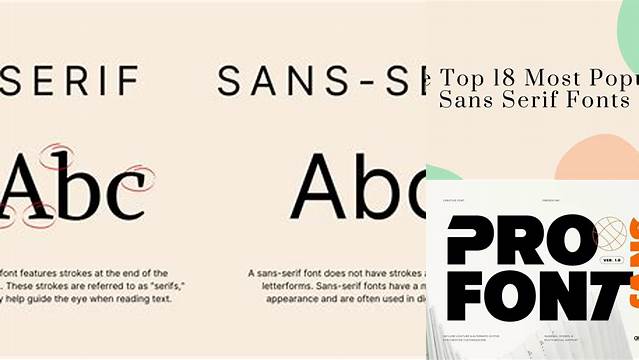
Sans-Serif Fonts In Academics: Why They're A Good Choice
Hey everyone! Ever wondered why sans-serif fonts are often the go-to choice for academic documents? It's not just a matter of style; there are some solid reasons why these fonts are preferred in the academic world. Let's dive into the world of typography and explore the advantages of using sans-serif fonts in your scholarly work. Using the right font can make a huge difference in how your work is perceived and how easily it is read, so let’s get into it, shall we?
What are Sans-Serif Fonts?
So, first things first, what exactly are sans-serif fonts? Well, the term “sans-serif” comes from French, where “sans” means “without.” Essentially, these fonts are the rebels of the font world, ditching the little decorative strokes (called serifs) that you see on fonts like Times New Roman. Think of Arial, Helvetica, or Calibri – these are your classic sans-serif fonts. They're known for their clean, modern look, which makes them super popular for a variety of uses, especially in the digital realm. Now, why would this clean look matter in academic writing? It's all about readability and clarity, which are key when you're trying to convey complex ideas. Imagine trying to wade through a dense research paper where the font feels cluttered or old-fashioned. Not a fun time, right? That's where sans-serif fonts come in to save the day, offering a breath of fresh air with their straightforward design.
Enhanced Readability On-Screen
One of the biggest reasons why sans-serif fonts shine in academic documents is their enhanced readability on-screen. In today's digital age, a significant portion of academic reading happens on screens, be it laptops, tablets, or smartphones. Sans-serif fonts, with their clean lines and lack of serifs, render exceptionally well on digital displays. This is because the absence of those tiny strokes makes the letters appear clearer and less cluttered, especially at smaller sizes or lower resolutions. Think about it – when you're staring at a screen for hours, reading dense academic text, your eyes can get tired pretty quickly. Sans-serif fonts help to alleviate this eye strain by providing a more visually comfortable reading experience. They ensure that each letter is distinct and easily recognizable, which is crucial for maintaining focus and comprehension. For students and researchers who spend countless hours reading and writing, this can be a game-changer.
Modern and Professional Appearance
Let's be real, presentation matters, even in academics. Sans-serif fonts bring a modern and professional appearance to any document. In the academic world, where credibility and clarity are paramount, choosing the right font can subtly influence how your work is perceived. Sans-serif fonts convey a sense of contemporary sophistication and directness. They suggest that the content is up-to-date and the writer has paid attention to detail. Unlike serif fonts, which can sometimes feel traditional or even old-fashioned, sans-serif fonts project a clean, minimalist aesthetic that resonates well with modern readers. This doesn't mean serif fonts are bad, but in the context of academic papers, presentations, or reports, a sans-serif font can help your work stand out in a positive way. Think of it as dressing the part for a professional setting – the right font is part of your academic attire.
Reduced Eye Strain
Let's talk about eye strain, a common foe of anyone who spends long hours reading, especially academic texts. Sans-serif fonts play a crucial role in reducing eye strain, making them a top choice for lengthy documents. The clean, straightforward design of sans-serif fonts minimizes visual clutter, allowing your eyes to glide more smoothly across the text. This is particularly important when dealing with complex material that requires intense focus. When a font is too ornate or the serifs are too prominent, your eyes have to work harder to distinguish each letter, leading to fatigue. By choosing a sans-serif font, you're essentially giving your eyes a break, making the reading process more comfortable and sustainable. This is a huge advantage for students, researchers, and anyone else who spends significant time reading and analyzing academic content.
Improved Legibility in Headings and Titles
When it comes to headings and titles, improved legibility is key, and sans-serif fonts deliver just that. Think about it – headings are like signposts, guiding readers through your document and highlighting the main points. You want them to stand out and be easily readable at a glance. Sans-serif fonts, with their clear and concise letterforms, excel in this role. They grab attention without being overwhelming, making it easier for readers to quickly scan the document and understand its structure. This is especially important in academic papers, where clear organization and easy navigation are crucial. A well-chosen sans-serif font for headings can create a visual hierarchy that enhances the overall readability of your work. Plus, a clean heading can make a great first impression!
Better Performance in Digital Presentations
Digital presentations are a staple in academic life, and sans-serif fonts offer better performance in this medium. Whether you're presenting research findings, delivering a lecture, or pitching a proposal, your slides need to be visually appealing and easy to read. Sans-serif fonts shine in this context because they are designed for clarity on screens. Their clean lines and simple shapes ensure that your text remains legible, even from a distance. This is crucial for keeping your audience engaged and ensuring that your message gets across effectively. Think of those PowerPoint slides crammed with tiny, ornate fonts – not exactly a recipe for success. Sans-serif fonts, on the other hand, provide a professional, modern look that enhances the overall impact of your presentation. So, next time you're prepping a slideshow, consider reaching for a sans-serif font to give your presentation a polished edge.
Consistency Across Platforms
In the digital age, consistency across platforms is a big deal, and sans-serif fonts help you achieve just that. Academic work often involves sharing documents across different devices and operating systems. You want to ensure that your carefully chosen font looks the same, no matter where it's being viewed. Sans-serif fonts are generally more consistent in their rendering across various platforms compared to serif fonts. This means that your document will maintain its intended appearance whether it's opened on a Windows PC, a Mac, or a mobile device. This consistency is crucial for maintaining the professional look of your work and avoiding any unintended visual surprises. After all, the last thing you want is for your meticulously formatted paper to look completely different when someone else opens it. Sans-serif fonts offer a reliable solution, ensuring that your academic documents look polished and professional, no matter the platform.
Accessibility for Readers with Visual Impairments
Accessibility for readers with visual impairments is a critical consideration in any form of writing, and sans-serif fonts can play a significant role in improving it. The clean, simple letterforms of sans-serif fonts make them easier to read for individuals with visual impairments, such as dyslexia or low vision. The absence of serifs reduces visual clutter, making each letter more distinct and less likely to blend together. This clarity can significantly enhance reading comprehension and reduce frustration for readers with visual challenges. Choosing a sans-serif font is a simple yet powerful way to make your academic documents more inclusive and accessible to a wider audience. It demonstrates a commitment to clear communication and respect for all readers. So, when you're selecting a font for your next paper or presentation, think about accessibility – it makes a difference.
Global Readership Considerations
When you're writing for an academic audience, global readership considerations are essential, and sans-serif fonts can be a great choice in this context. Academic research often transcends borders, reaching readers from diverse linguistic and cultural backgrounds. Sans-serif fonts are generally well-received across different cultures and are often the preferred choice for international audiences. Their clean, modern aesthetic is less likely to be associated with specific cultural styles or traditions, making them a neutral and universally appealing option. Additionally, sans-serif fonts tend to render well in various character sets, including those used in non-Latin alphabets. This adaptability is crucial for ensuring that your work is legible and accessible to readers around the world. So, if you're aiming for a global audience, consider the inclusive nature of sans-serif fonts – they can help your message resonate with a wider readership.
The Impact of Font Trends on Academic Writing and Research
Just like fashion, typography has trends, and these font trends can have an impact on academic writing and research. While classic sans-serif fonts like Arial and Helvetica remain popular, new sans-serif fonts are constantly being developed and gaining traction. These trends can influence the fonts that are considered modern, professional, and appropriate for academic use. For example, there has been a recent trend towards geometric sans-serif fonts, which are characterized by their clean lines and geometric shapes. These fonts can add a contemporary touch to academic documents. However, it's important to approach font trends with caution. In academic writing, clarity and readability are paramount, so it's best to choose fonts that are not only trendy but also highly legible. Avoid fonts that are too stylized or unconventional, as they can distract from your message. It's also important to consider the longevity of a font – a font that's trendy today might look dated in a few years. So, while it's good to be aware of font trends, always prioritize clarity and professionalism in your academic writing. Choosing a timeless sans-serif font is often the safest bet.